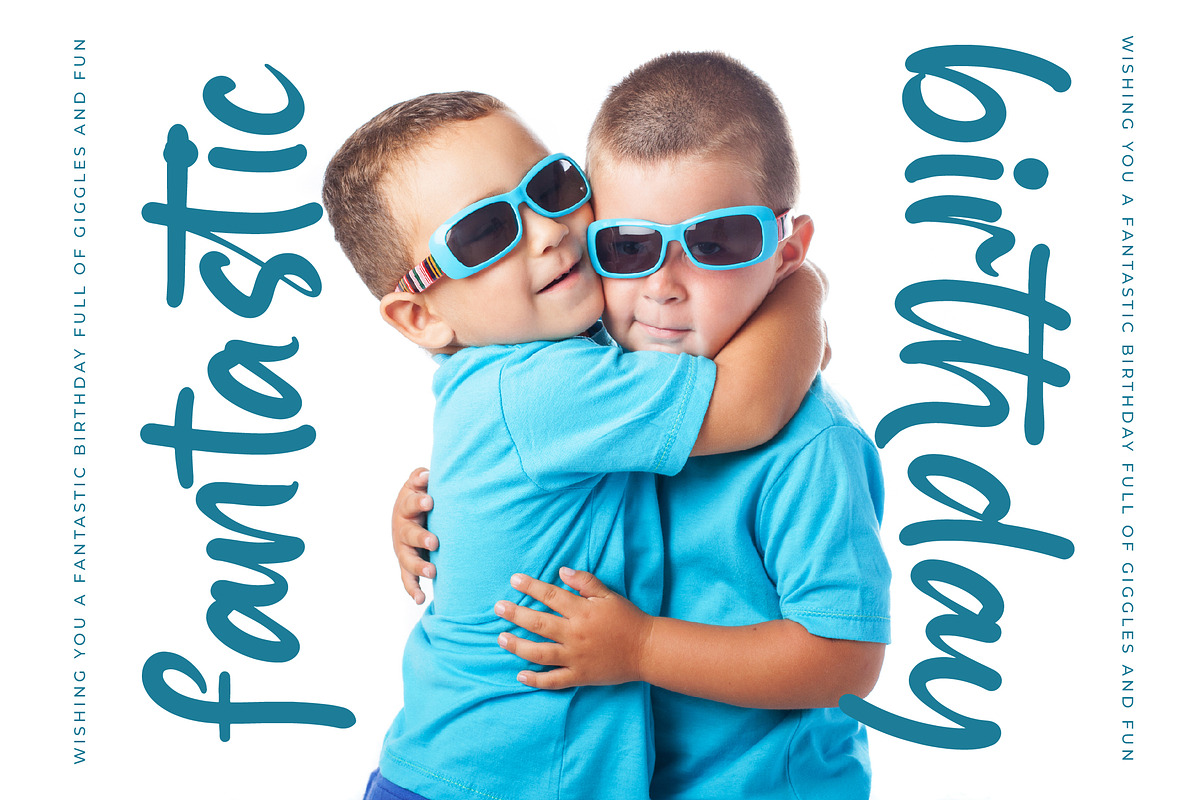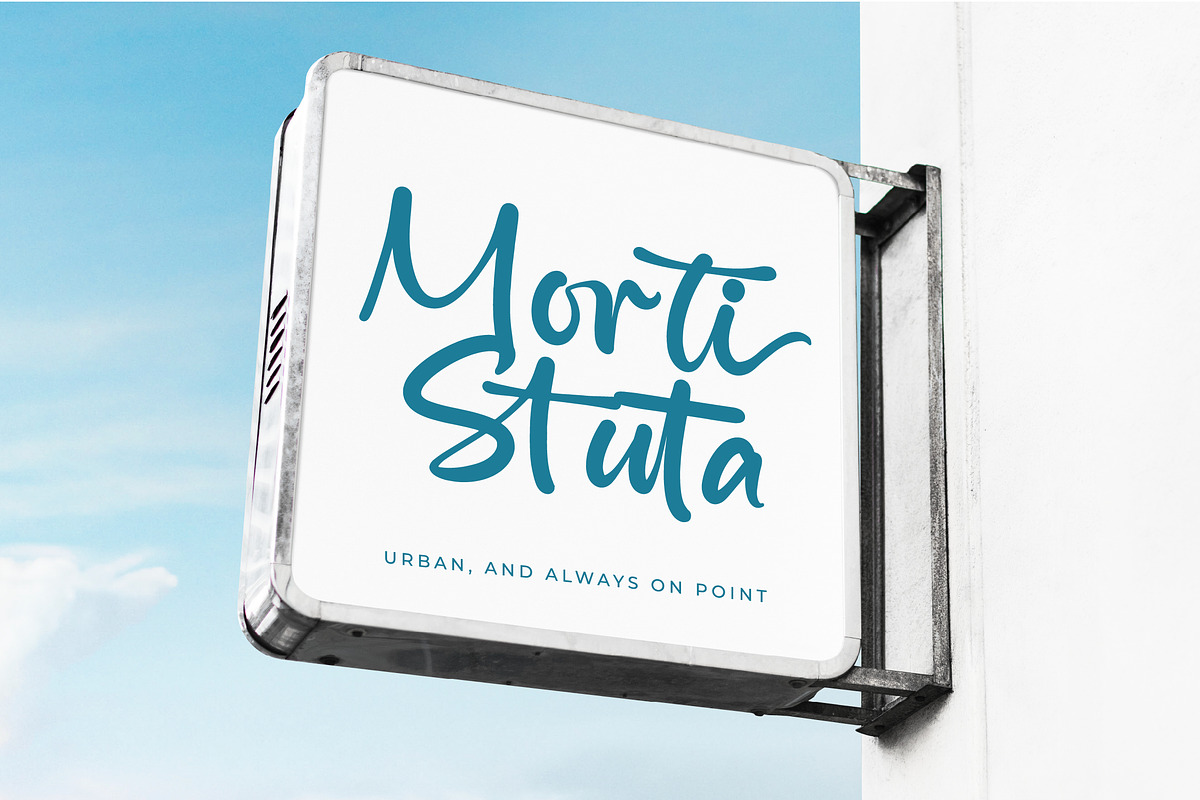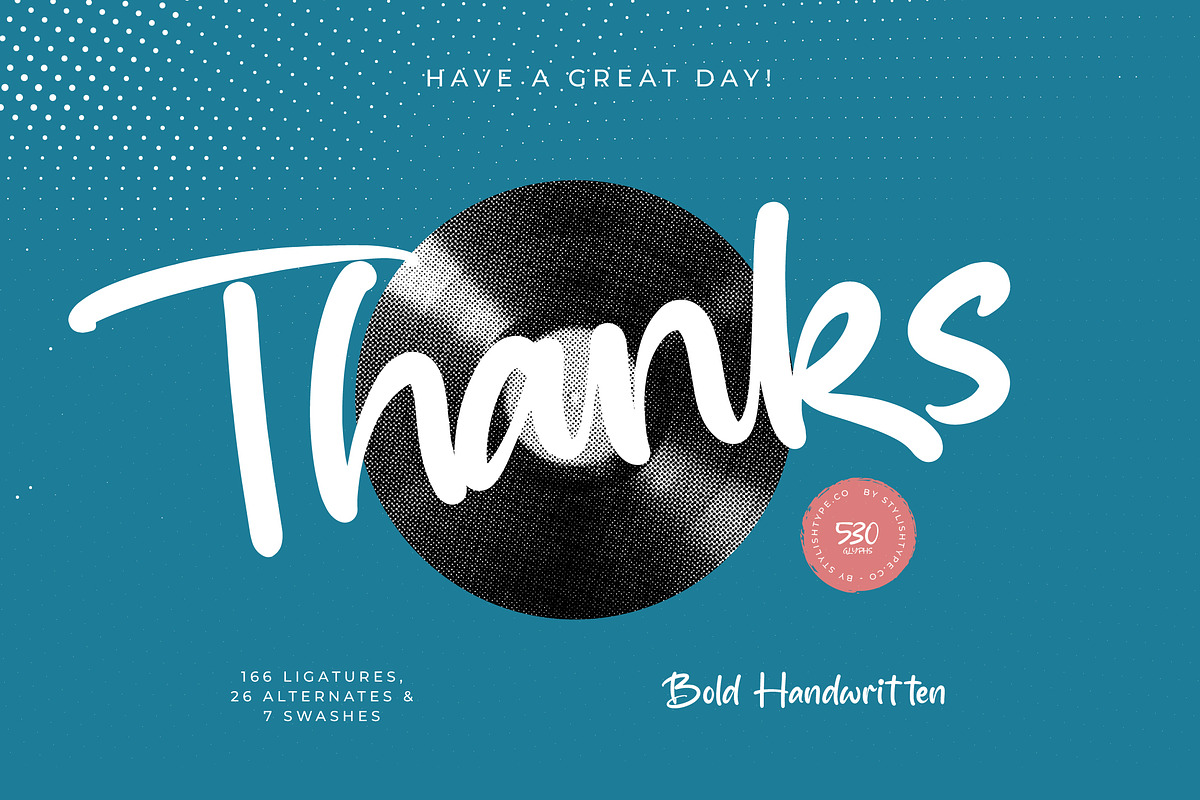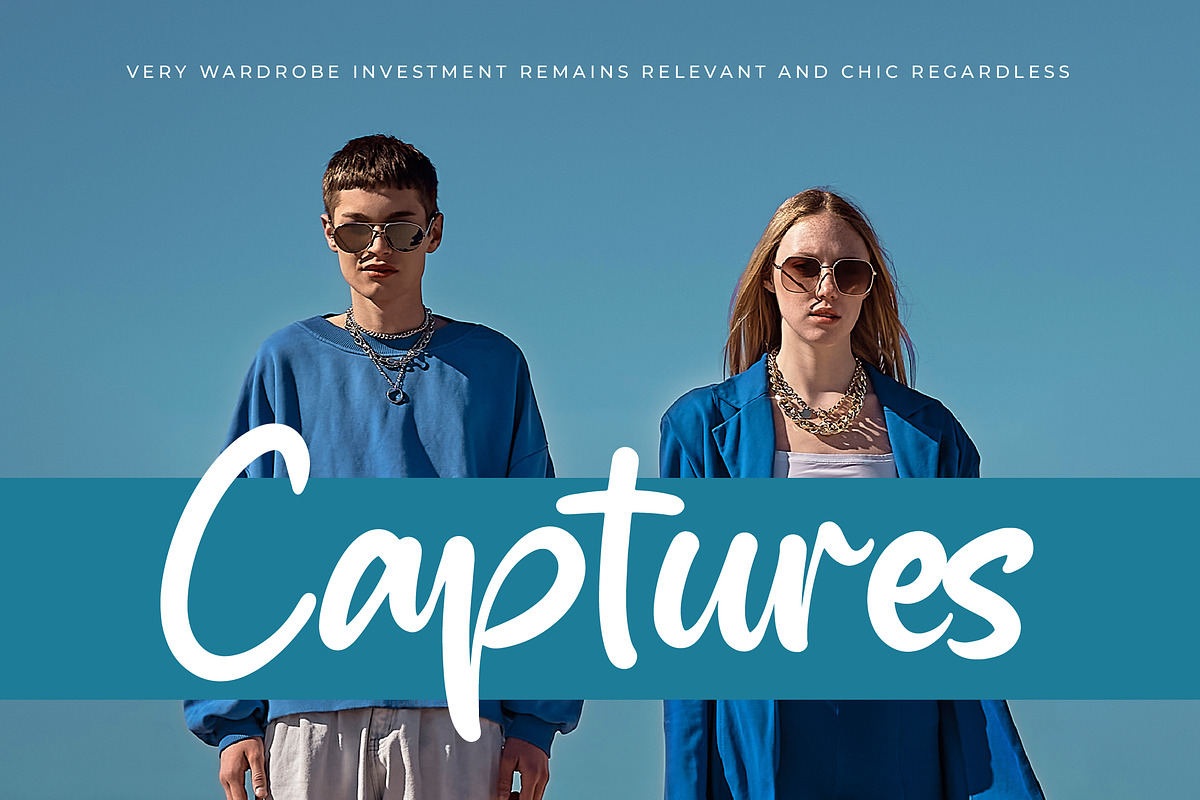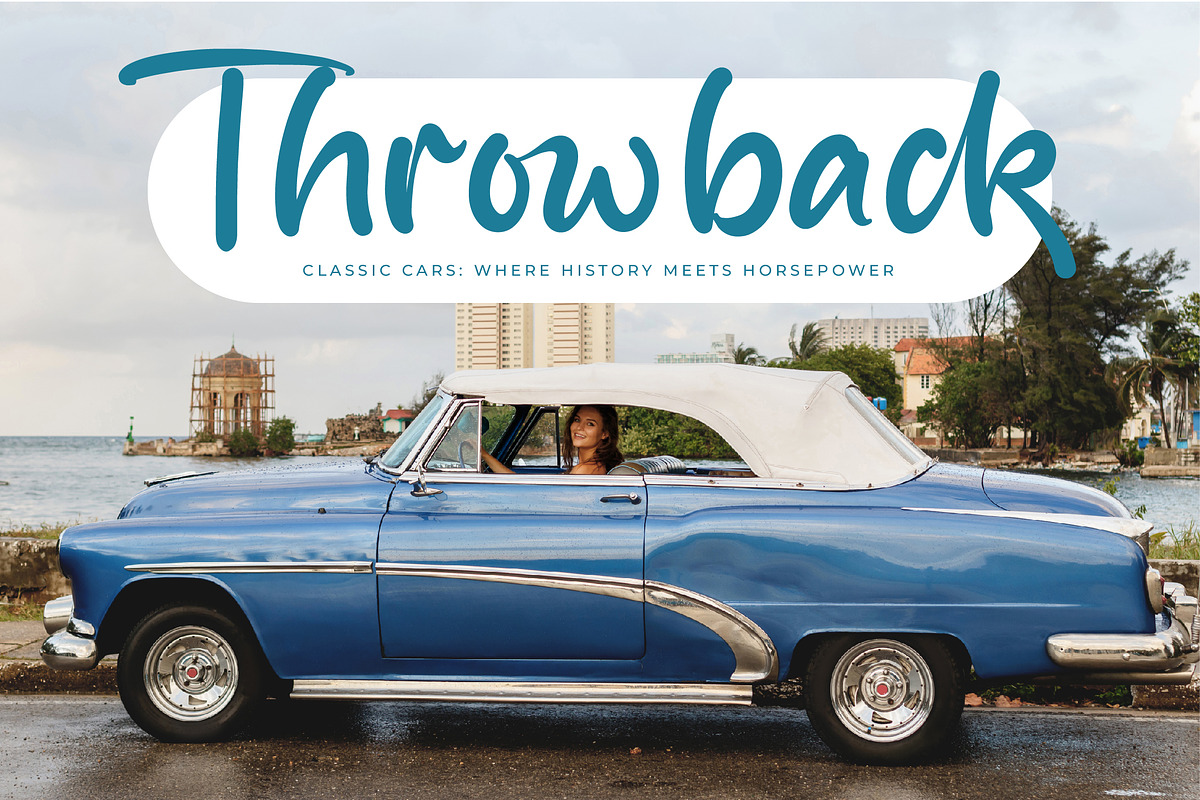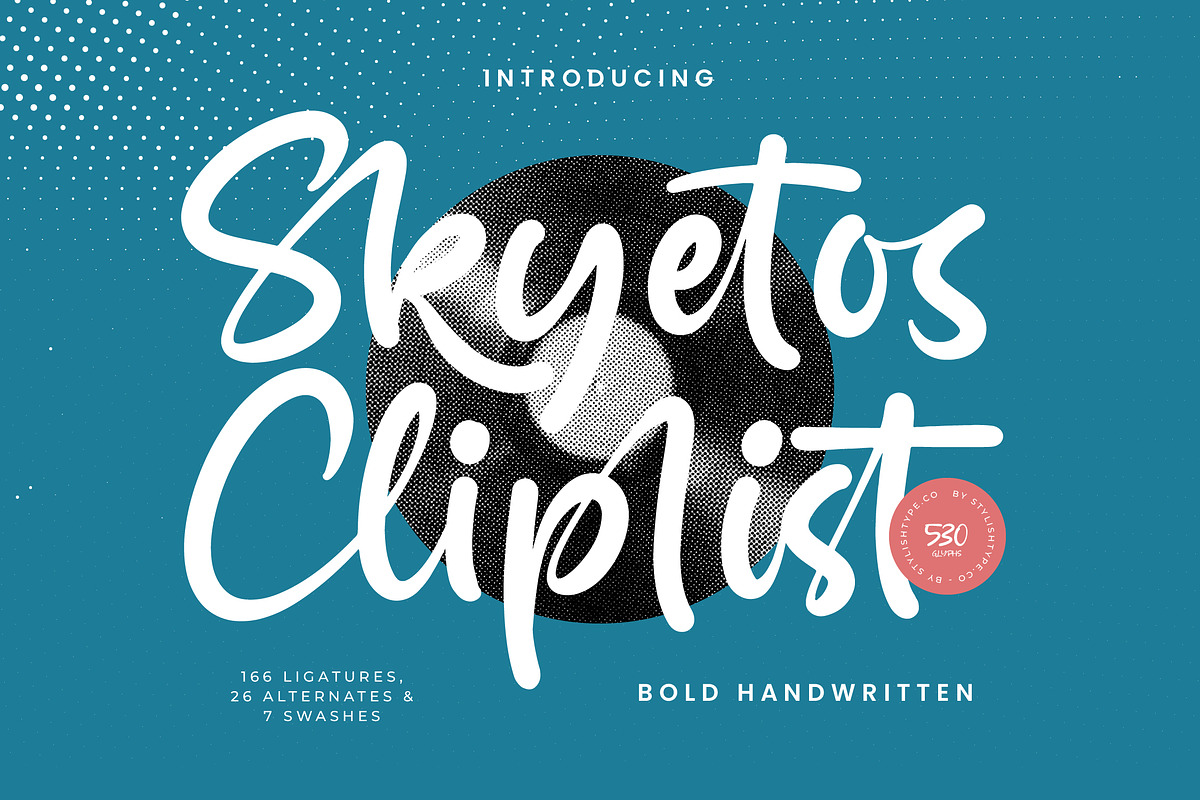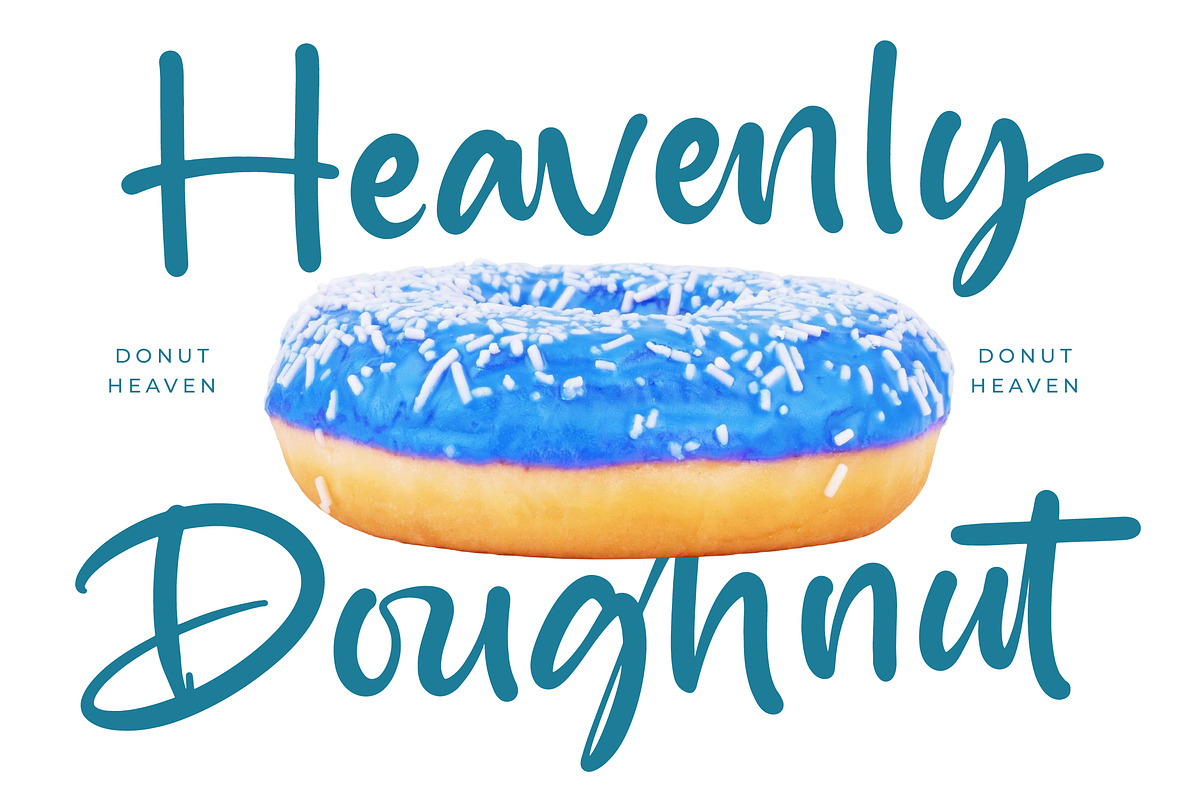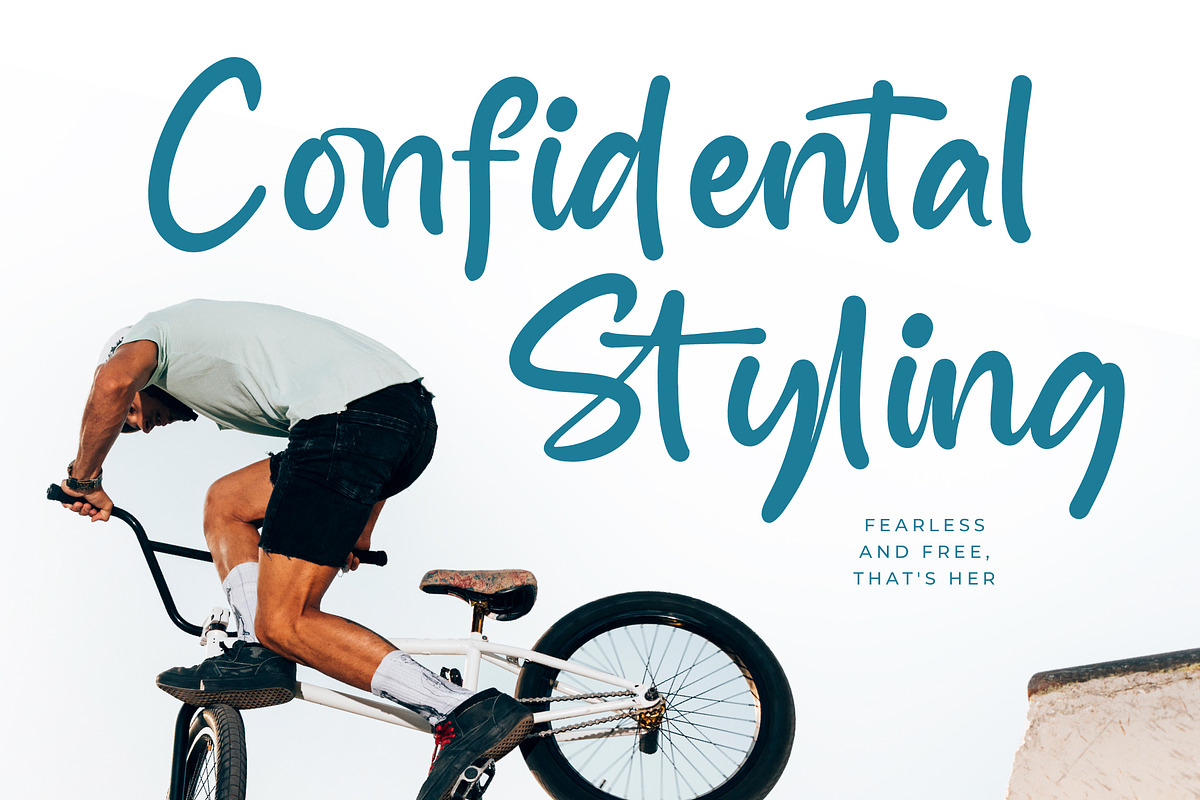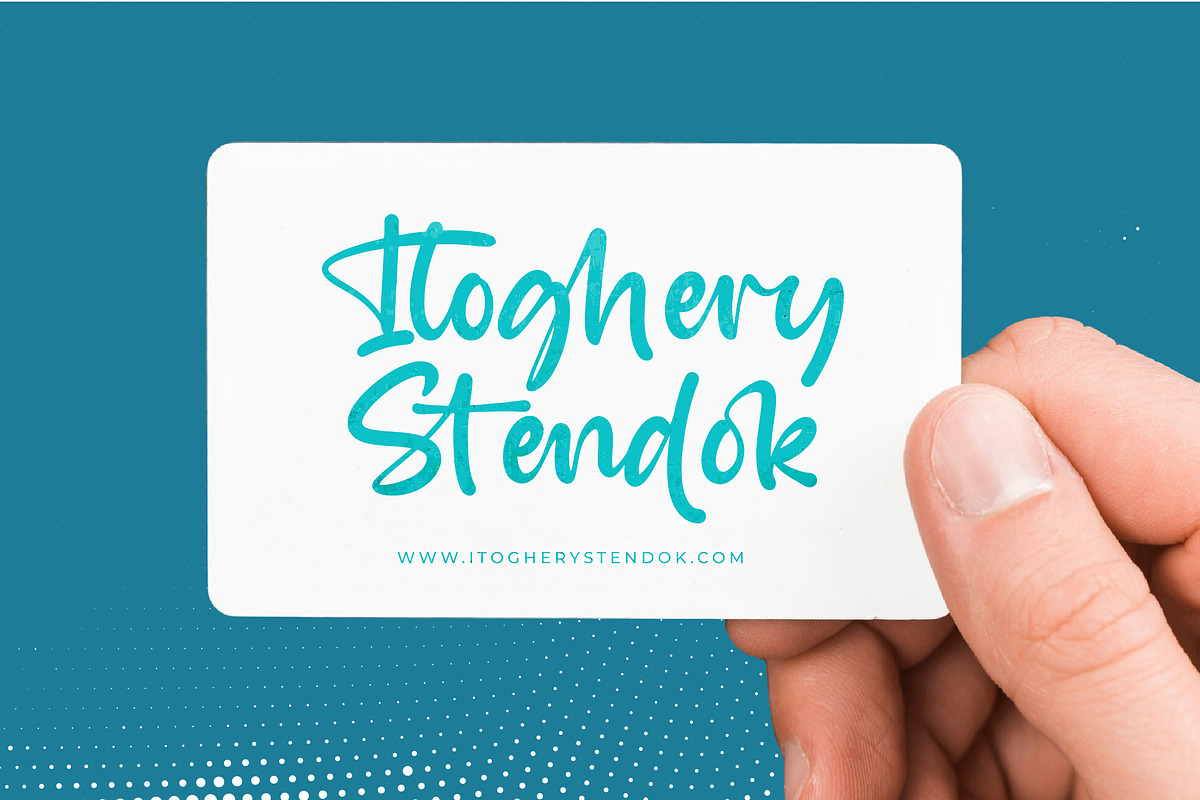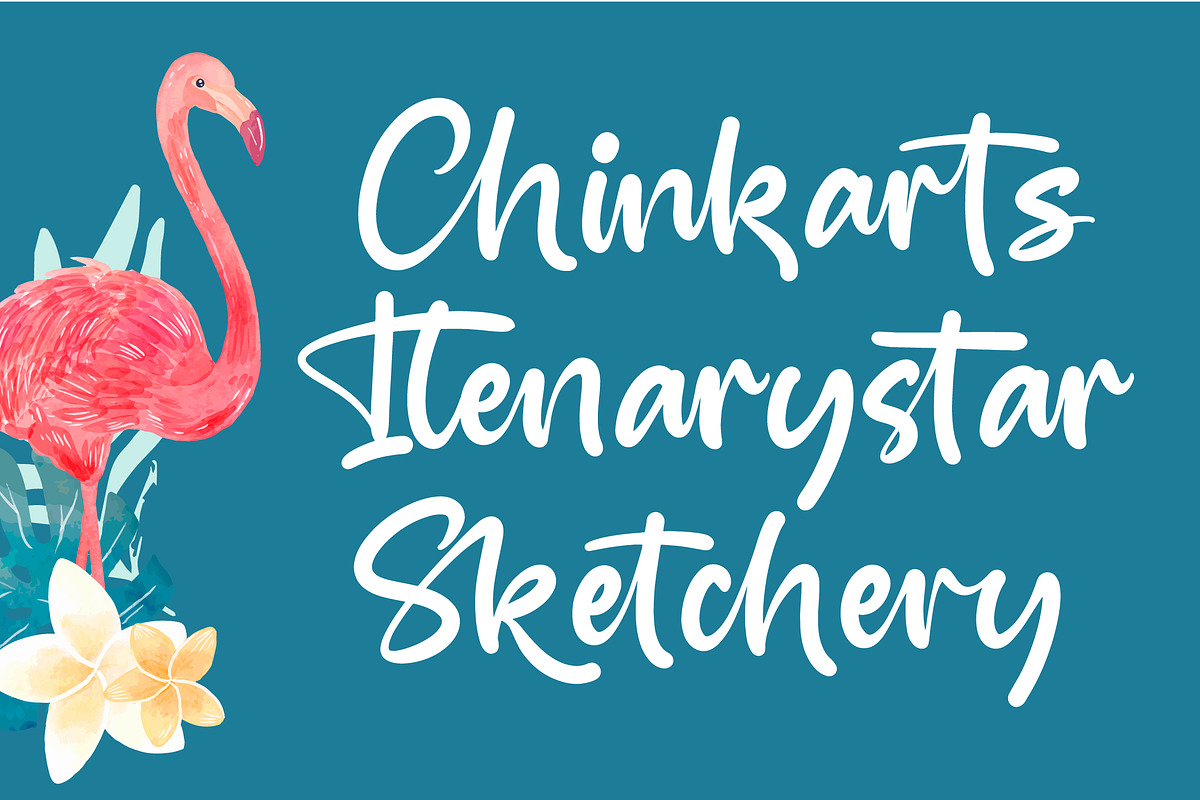
Skyetos Cliplist Bold Handwritten
Skyetos Cliplist - Bold Handwritten Font , from Stylishtype.Co , Suitable for any projects such as: logos, branding projects, homeware designs, product packaging, mugs, quotes, posters, shopping bags, t-shirts, book covers, name card, invitation cards, greeting cards, label, photography, watermark, special events, and all your other luxury and beautiful projects that need a Luxury Script taste.
- 166 Ligature 26 Alternates & 7 Swashes